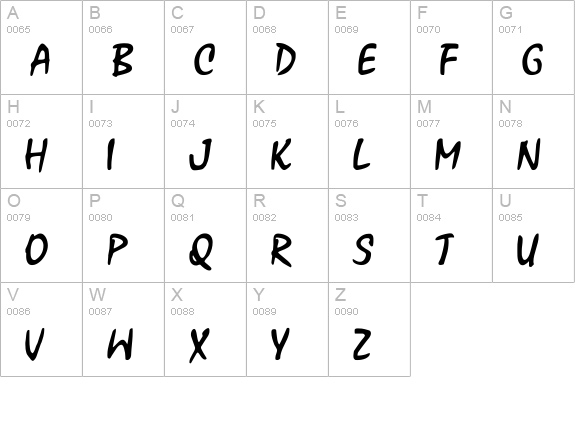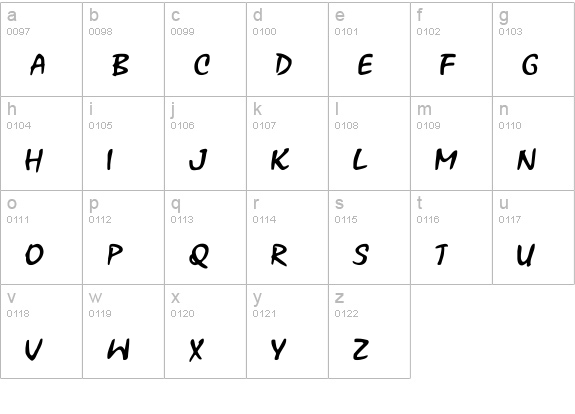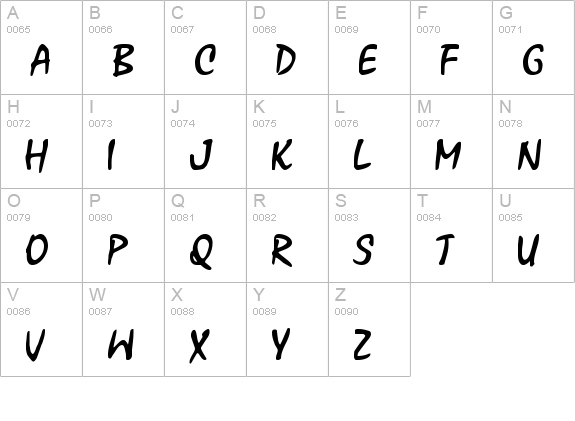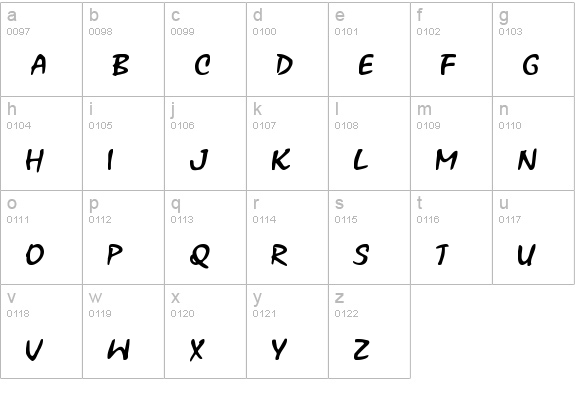
Xoxoxa Font Details
Introducing Xoxoxa font, a beautifully crafted typeface that exudes elegance and sophistication. With its sleek curves and modern design, Xoxoxa is the perfect choice for adding a touch of class to any project. This versatile font is ideal for a wide range of applications, from branding and advertising to invitations and stationery. What sets Xoxoxa apart is its seamless blend of classic and contemporary elements, making it a timeless choice for designers and creatives alike. Whether you're working on a logo, website, or print materials, Xoxoxa will help you make a lasting impression. The best part? Xoxoxa font is completely free to download at FontsMarket.com. So why wait? Elevate your designs with Xoxoxa today and see the difference it can make!